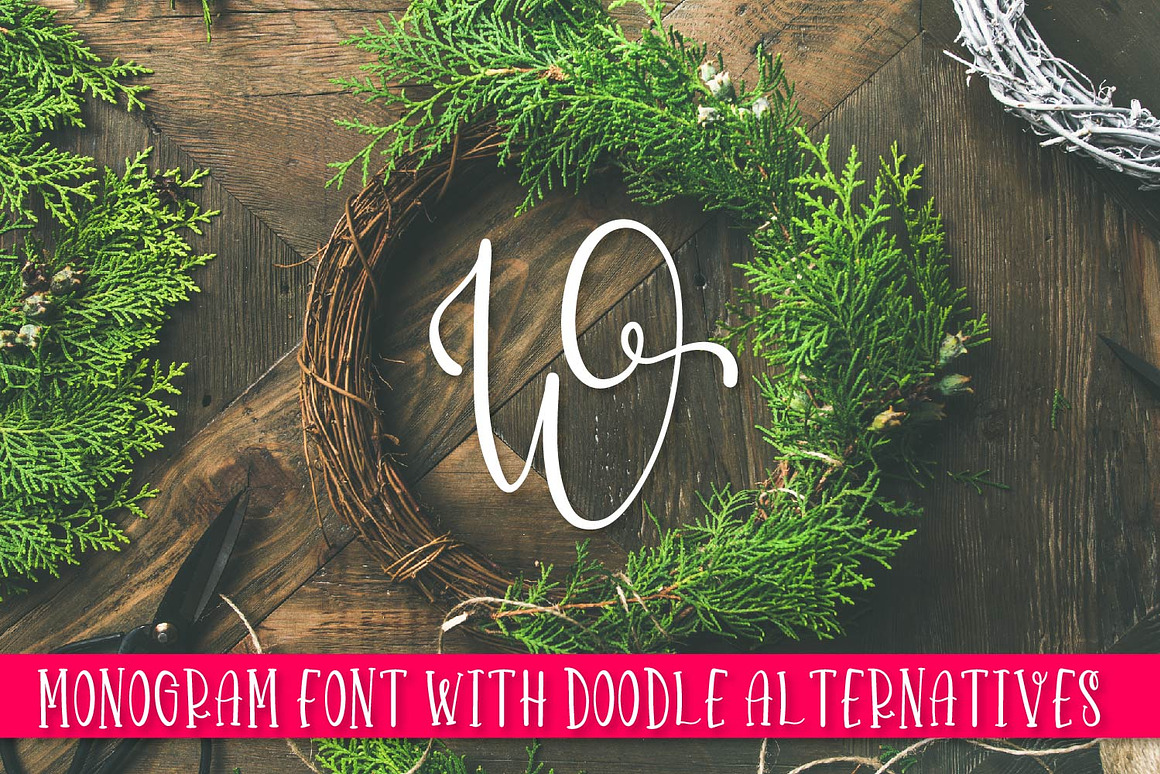
Monogram Font & Doodle Alternatives
Monogram Font & Doodle Alternatives is perfect for personalized wedding stationery, luxury brand emblems, elegant business cards, exclusive club logos, custom jewelry engravings, high-end product labeling, sophisticated letterheads, premium packaging designs, and distinguished corporate monograms.
What makes Monogram Font exciting is its exquisite decorative flourishes combined with timeless elegance that creates stunning personalized designs and memorable brand marks. The font's intricate ornamental details and classical proportions deliver unmatched sophistication while maintaining perfect balance, making it the premier choice for clients seeking exclusive, handcrafted aesthetic appeal that speaks to refined taste and attention to detail.
Monogram Font family includes ornate capitals, decorative borders, flourish elements, and connecting ligatures, providing designers with comprehensive tools for creating elaborate monographic compositions and sophisticated branding applications across various luxury markets.
This distinguished typeface captures the essence of traditional craftsmanship and aristocratic elegance in every carefully designed element. Monogram Font Free Download presents designers with an extraordinary opportunity to create truly personalized and exclusive visual identities that resonate with discerning clientele. Whether you're developing luxury wedding brands, crafting bespoke business identities, or designing premium product lines, this font family delivers the refinement and exclusivity that commands premium positioning.
The meticulously crafted ornamental elements seamlessly integrate with letterforms, creating cohesive designs that feel authentically handcrafted rather than digitally assembled. Extensive decorative options support unlimited creative customization possibilities.
Monogram Font distinguishes itself through its perfect marriage of classical typography traditions with contemporary application flexibility. This exceptional typeface transforms simple initials into sophisticated brand assets, making it an invaluable resource for designers specializing in luxury markets where personalization and exclusivity drive purchasing decisions.